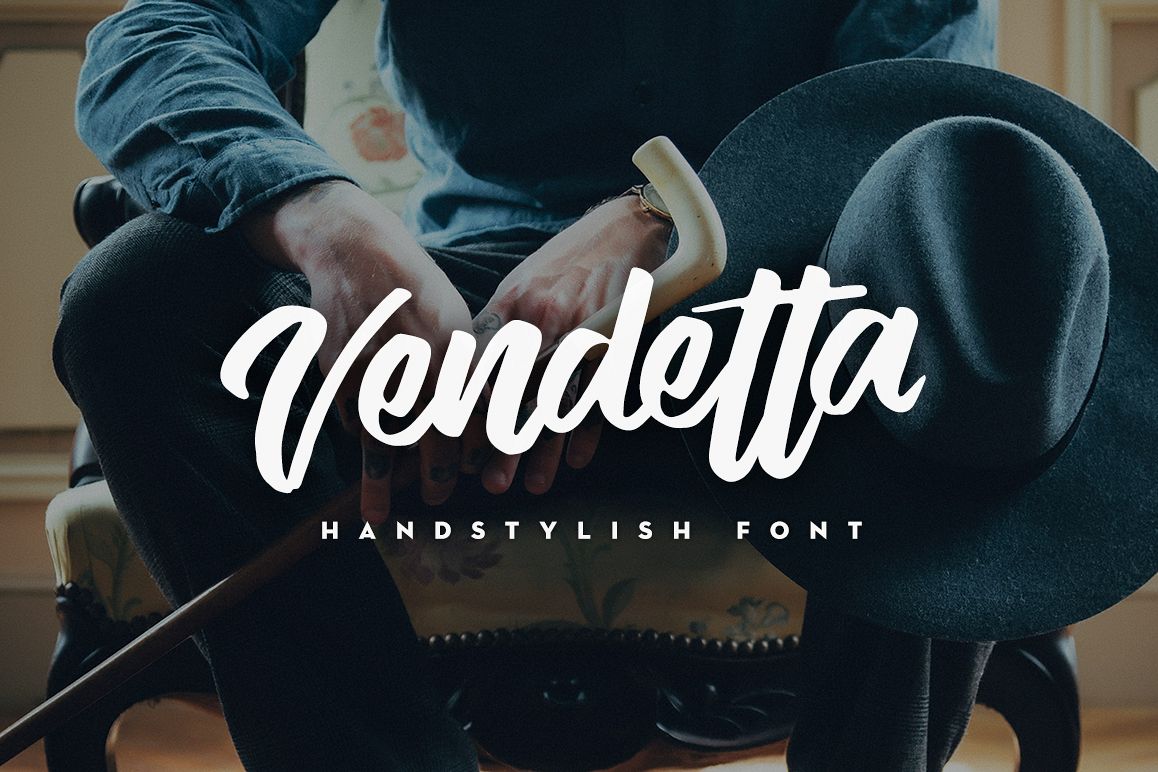
Vendetta Handstylish Font
Say hello for Vendetta Handstylish Font! Best match for logos, header, titles, prints & other creative process possibilities.
Create a extraordinary handstylish results by using Vendetta Handstylish Font!